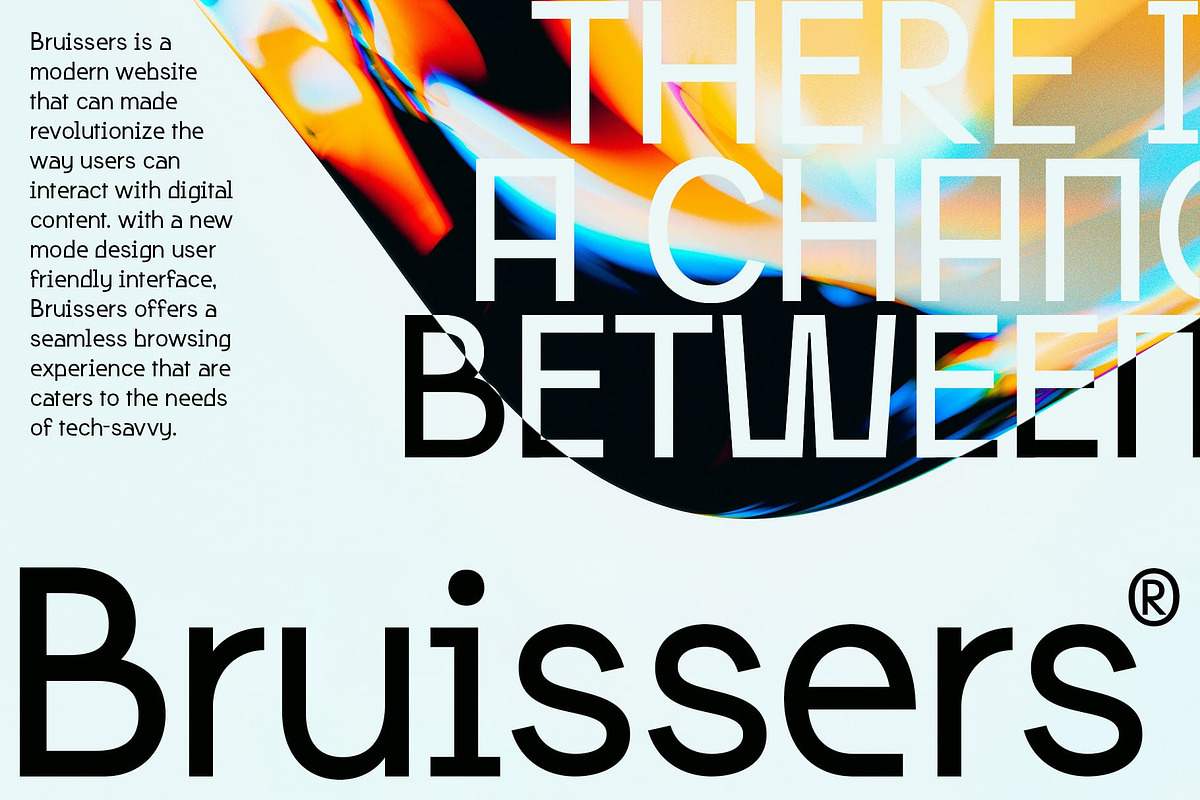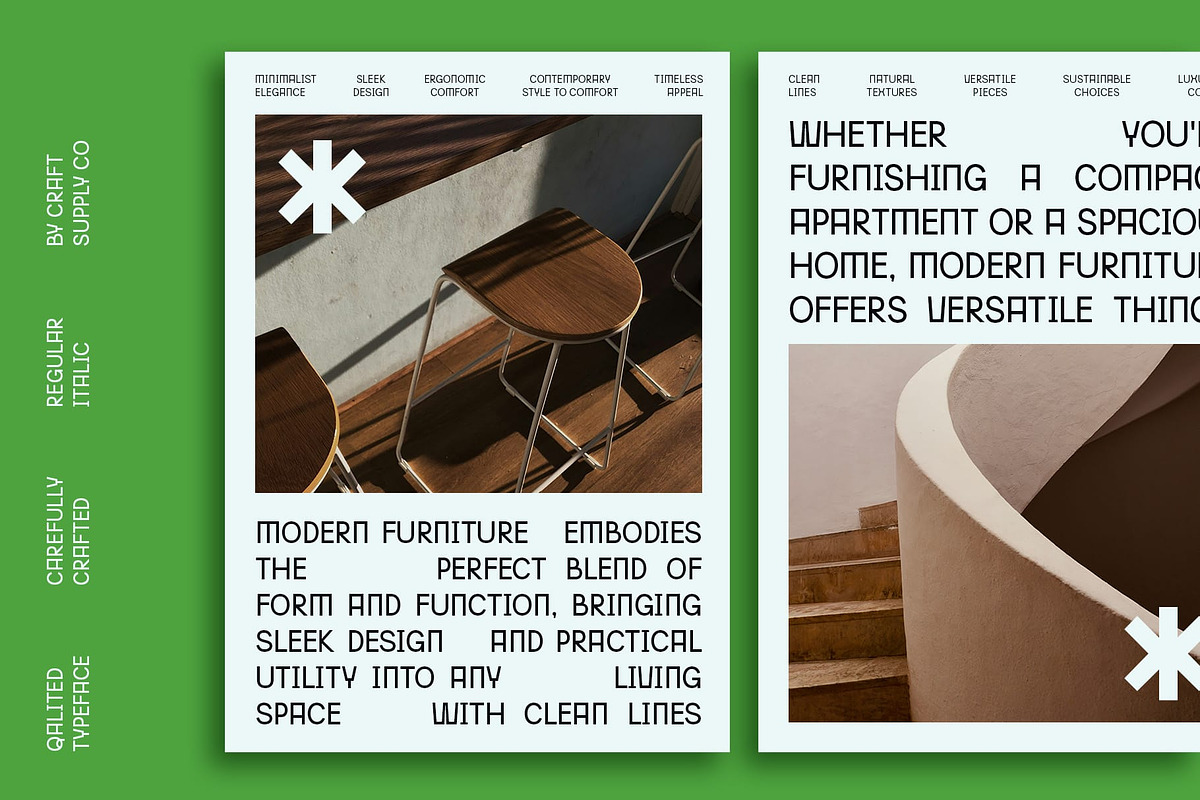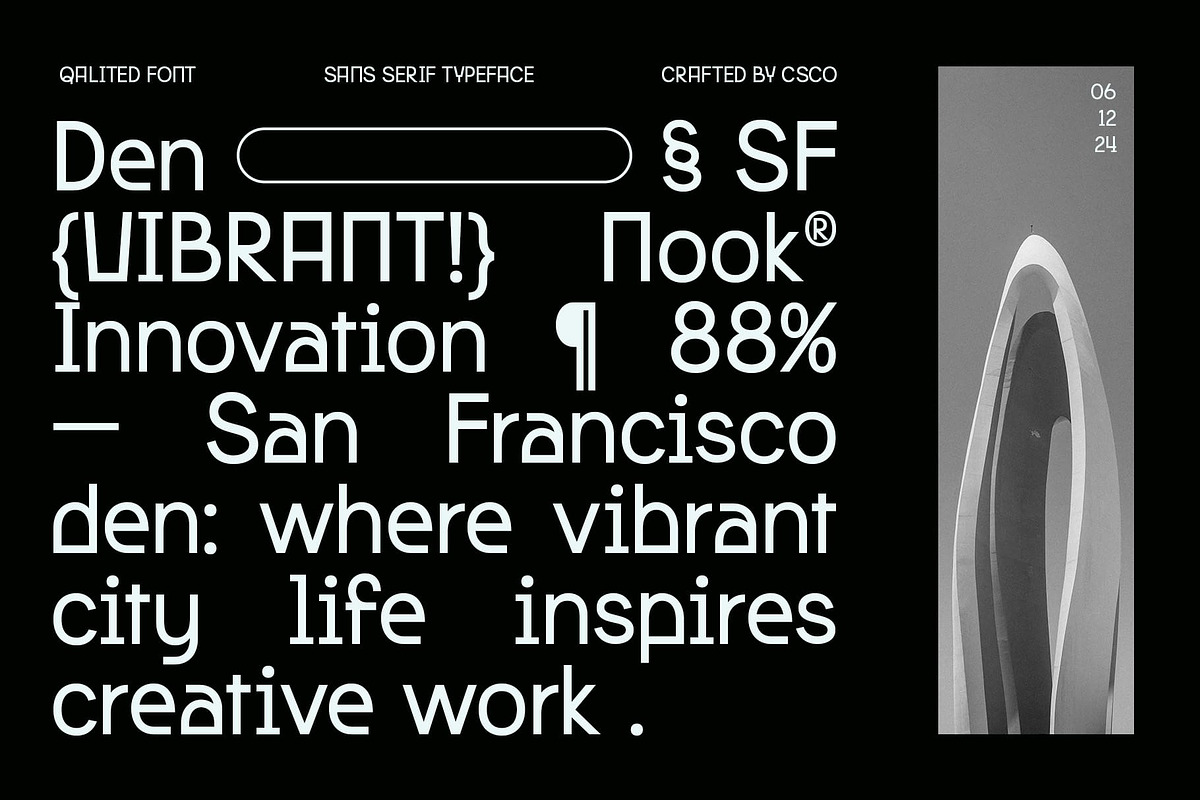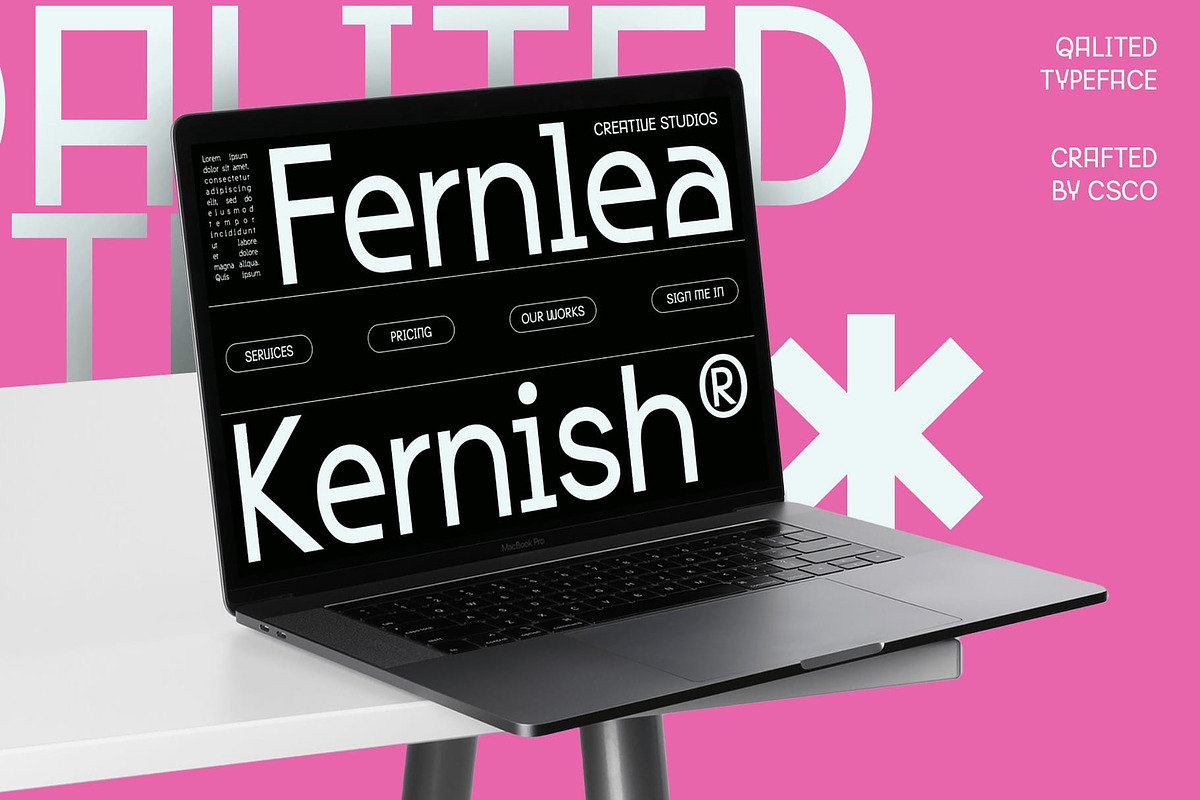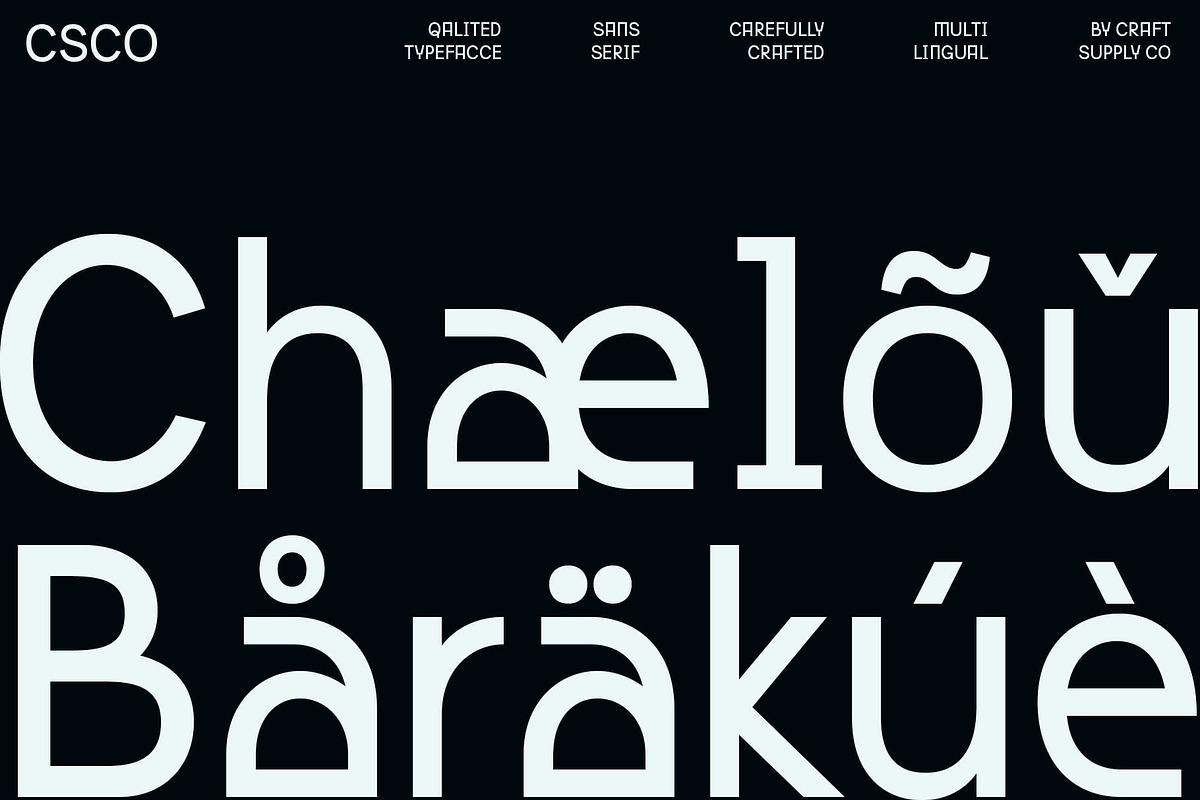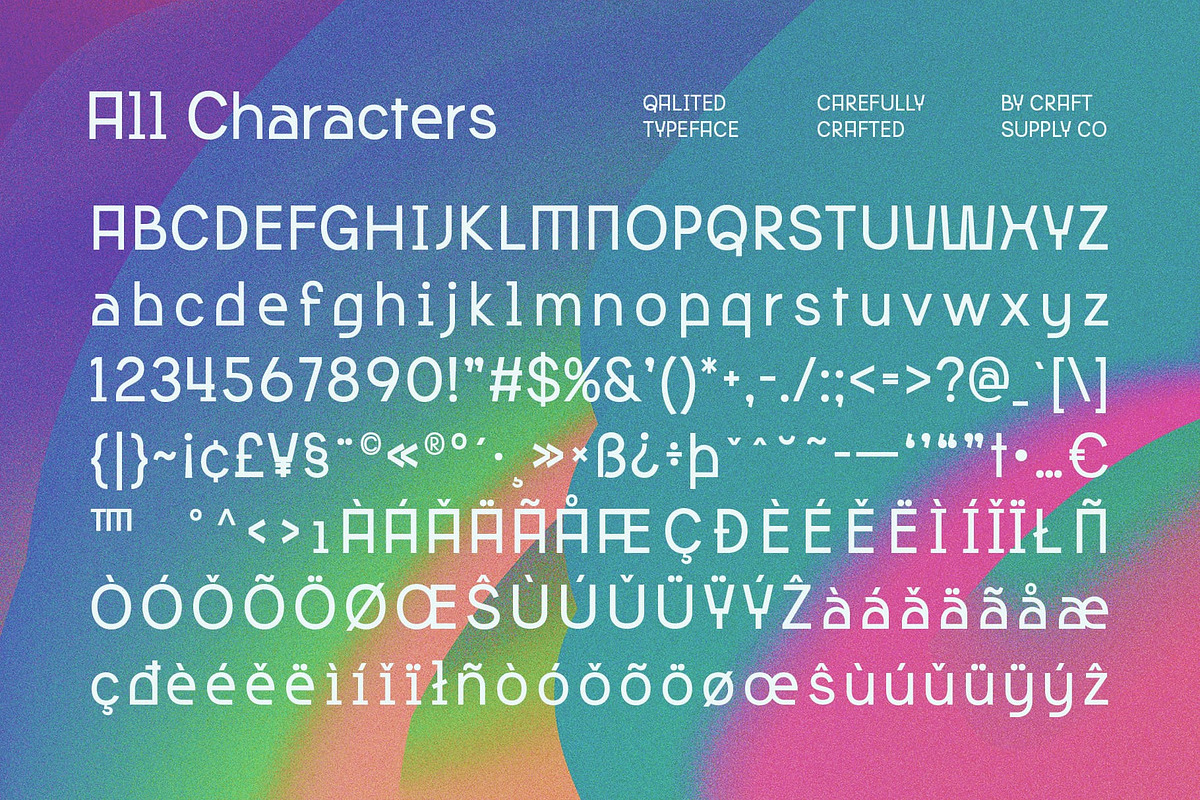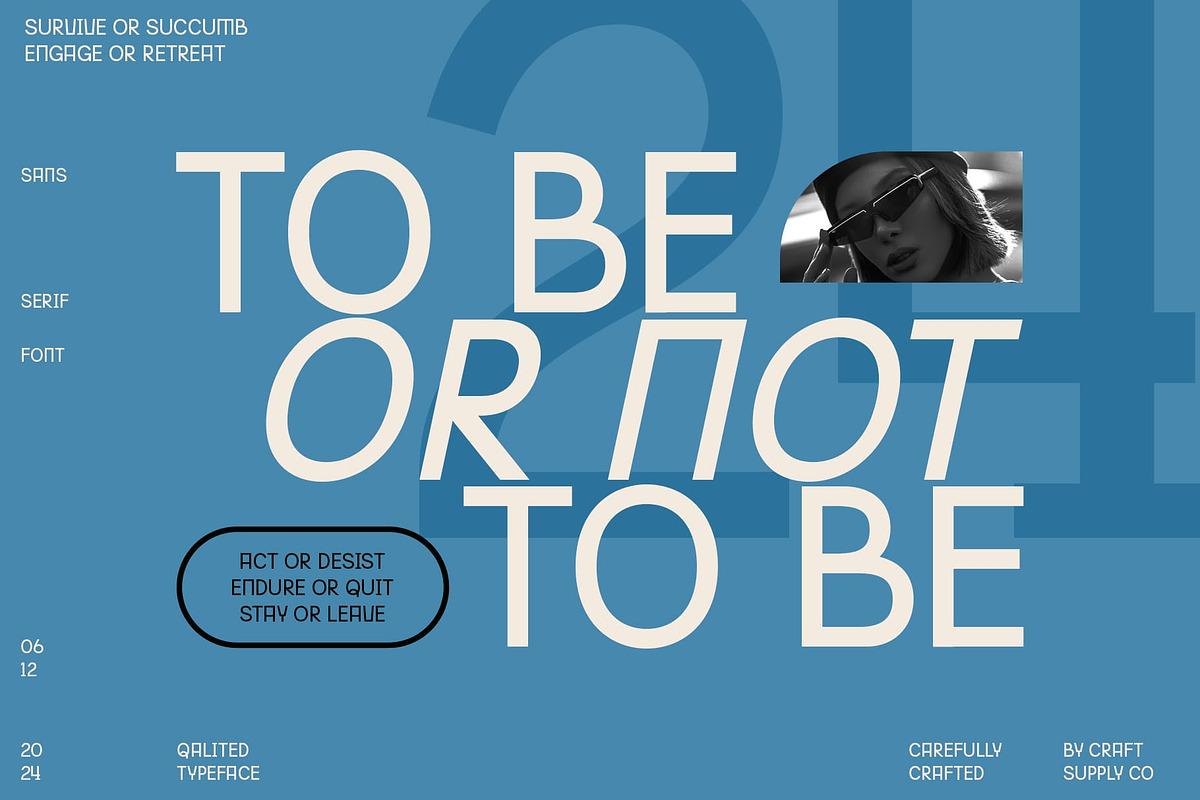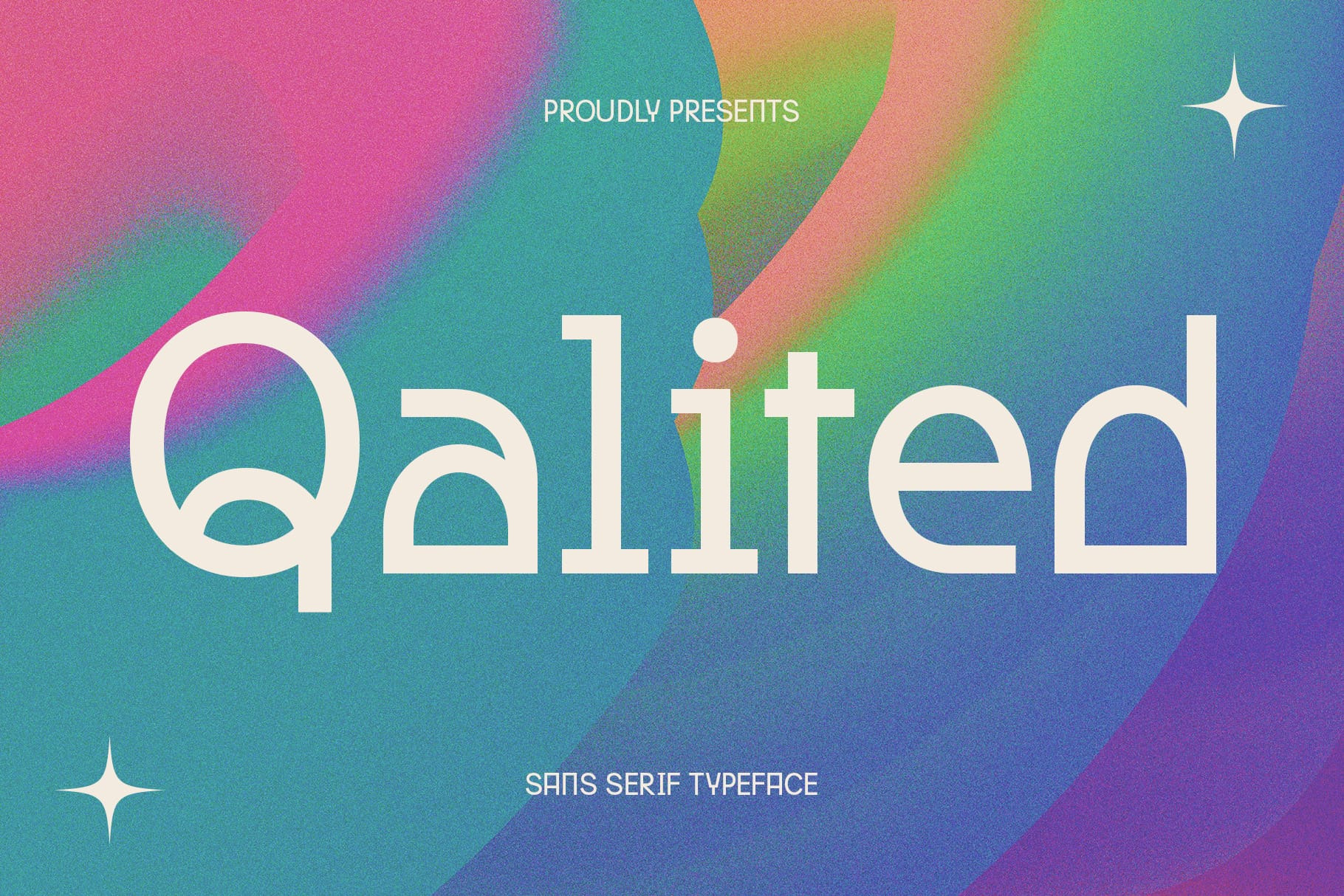
Qalited – Industrial Font
Qalited – Industrial Font: Modern and Reliable Sans Serif
Modern and Reliable Qalited is a modern sans-serif font with an industrial and corporate style. This powerful combination of contemporary aesthetics and reliability makes it suitable for various corporate designs, ensuring a modern and professional impression.
Ideal for Corporate Designs Perfect for logos, web design, promotional materials, and packaging design, Qalited guarantees your message is both seen and remembered. Its clean and assertive design makes it an excellent choice for creating modern and professional corporate designs.
Versatile and Trustworthy Despite its industrial style, Qalited remains versatile and trustworthy. Its sans-serif format makes it suitable for a wide range of projects, where a font that exudes reliability and professionalism is essential for making a statement.
Perfect for Adding a Modern Touch Qalited is ideal for projects requiring a font with a modern touch. Whether you’re designing a poster, logo, or website, this font will undoubtedly add a distinct and memorable element to your designs.
- Qalited Regular
- Qalited Italic